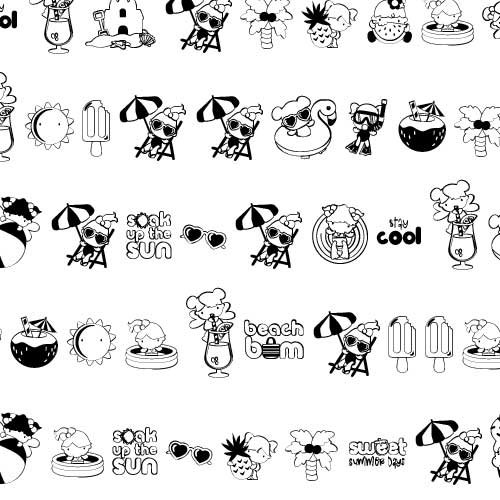
DB Short and Sweet - Heat - DB
This adorable doodlebat font features 26 cutie girls in the summer heat. Perfect for cards, crafts, gifts, planner stickers, scrap book pages, classrooms and more!